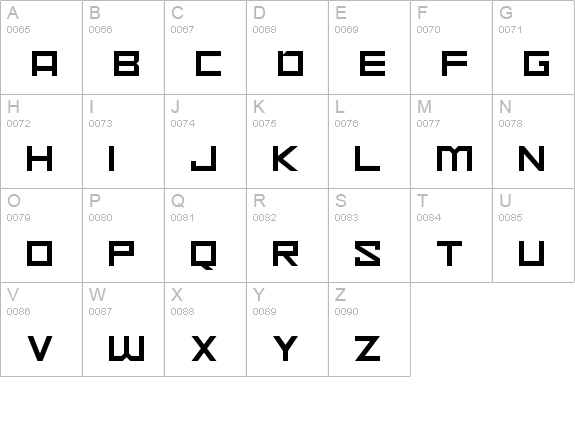
Space Madness font is a futuristic and eye-catching typeface that perfectly captures the essence of outer space exploration. With its sleek lines and unique design, this font is sure to add a touch of cosmic flair to any project. Whether you're working on a sci-fi movie poster, a space-themed website, or a futuristic branding project, Space Madness font will make your text stand out in the vastness of the digital universe.